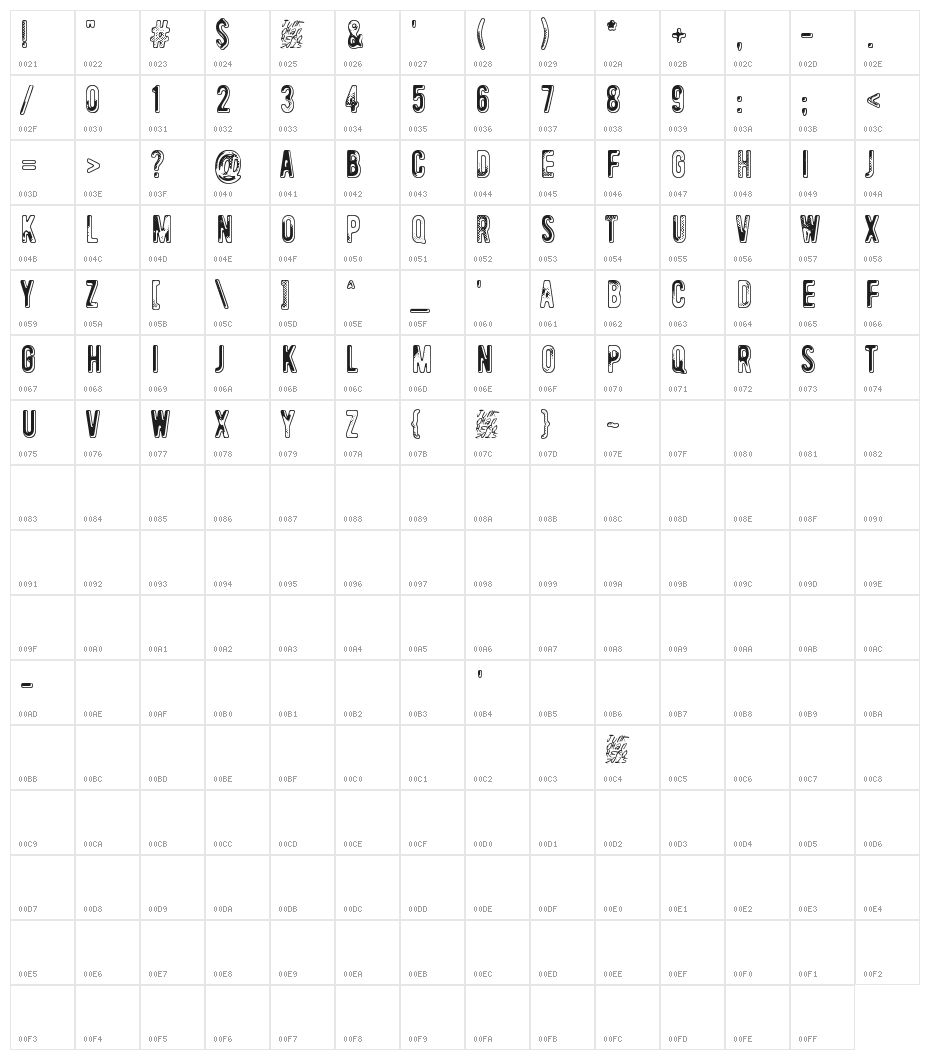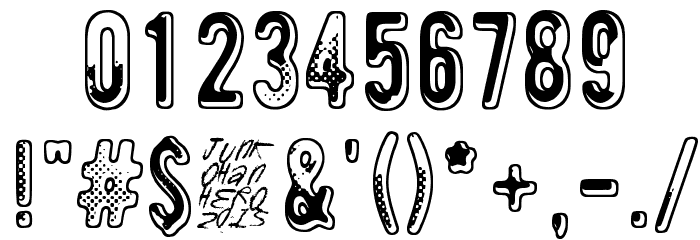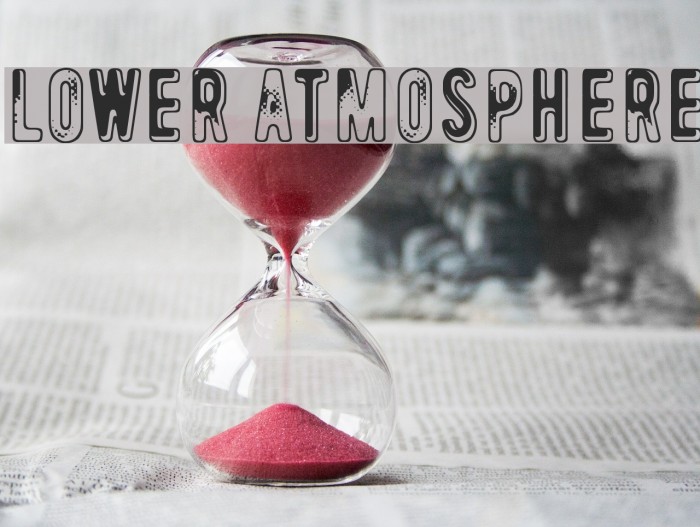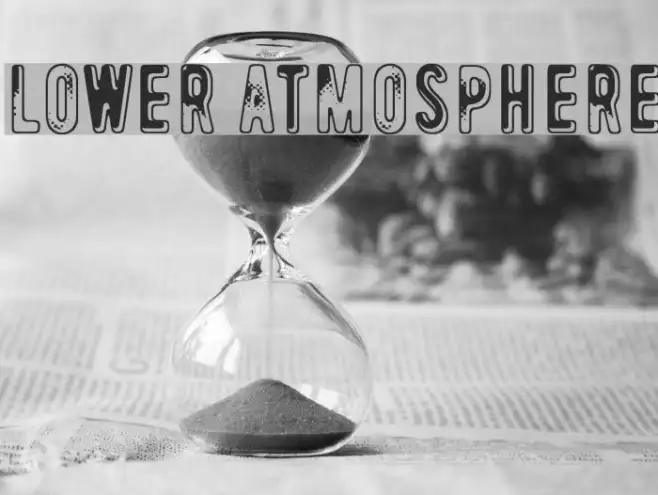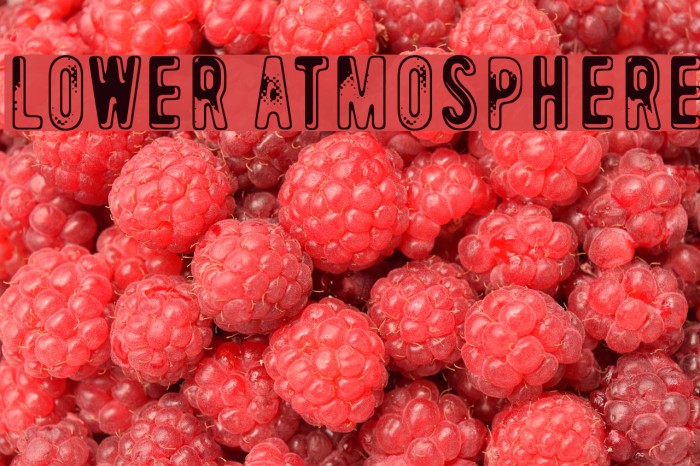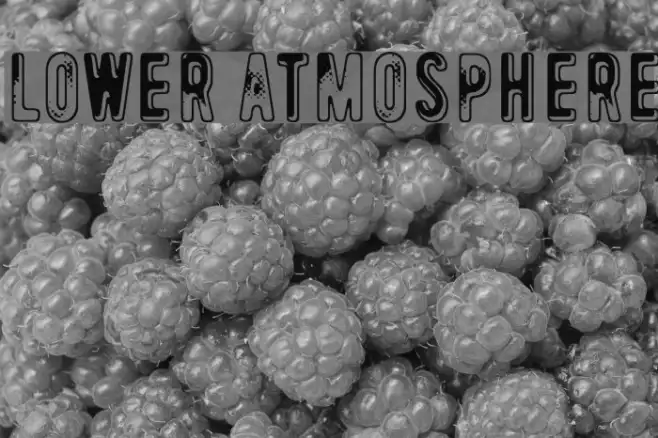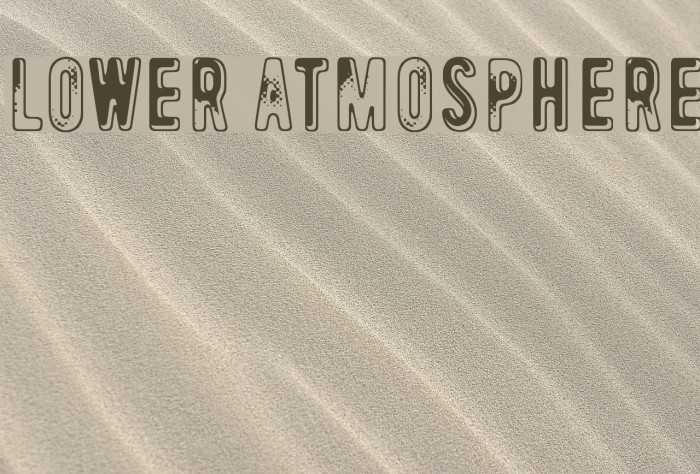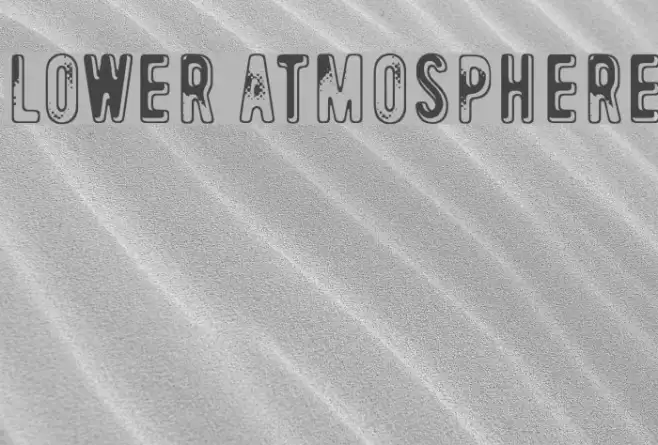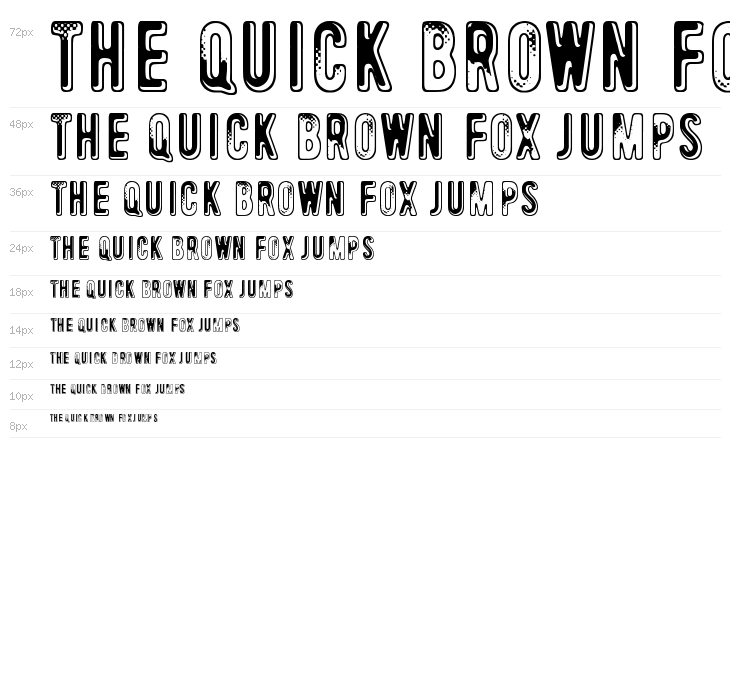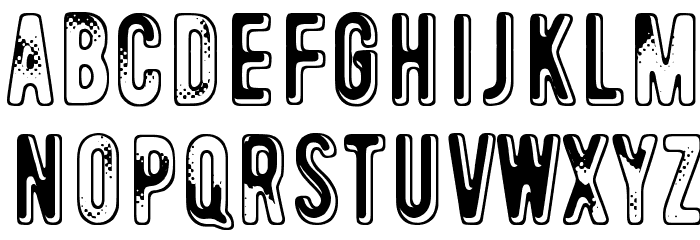
Lower atmosphere Font
Lower atmosphere Description
This font features a bold and playful design with a distressed, textured appearance. The letters are uppercase and lowercase, with numbers and a variety of special characters. Each character has a unique, weathered look, giving it a vintage and artistic feel. The font's style is reminiscent of retro signage or comic book lettering, with thick strokes and a slightly irregular outline that adds to its charm. The texture within the letters varies, with some characters appearing more worn than others, creating a dynamic and visually interesting effect. This font is ideal for projects that require a bold statement or a touch of nostalgia.